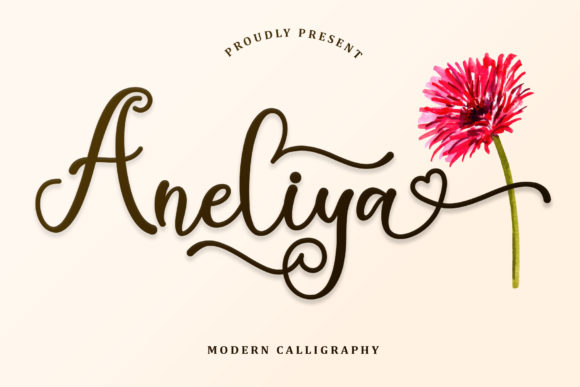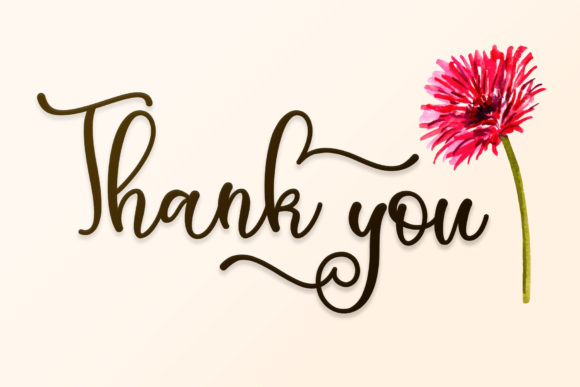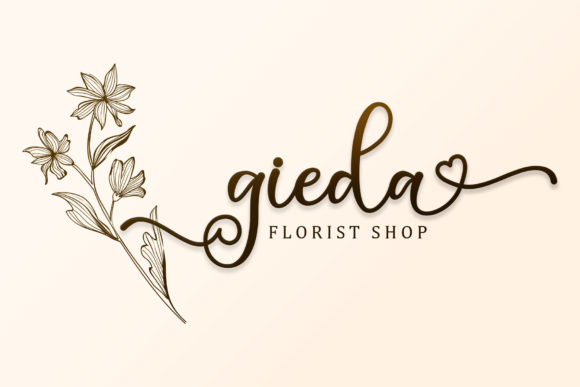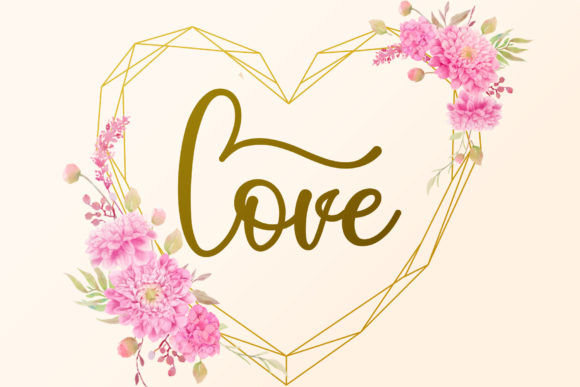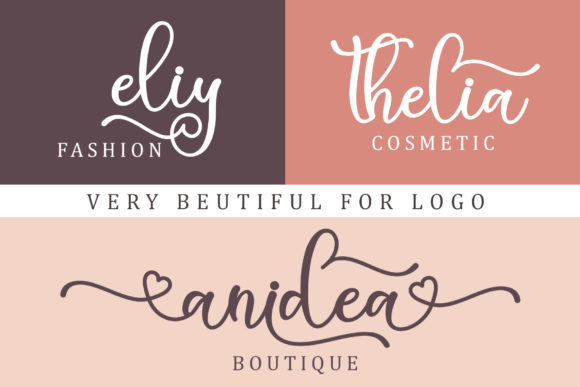
About Aneliya Font
Aneliya is a charming and romantic handwritten font that brings a touch of sweetness and elegance to any design project. With its flowing and graceful letterforms, this font creates a luxurious and sophisticated atmosphere, making it perfect for various creative endeavors.
Whether you’re working on wedding invitations, greeting cards, branding materials, or any other design project that needs a romantic and delicate touch, Aneliya will elevate your work to a new level of elegance. Its beautiful and refined style adds a sense of luxury and class, making your designs truly stand out.
One of the notable features of Aneliya is its extensive collection of glyphs and ligatures, which are easily accessible thanks to its PUA encoding. This means you can effortlessly access the special characters, swashes, and decorative elements that come with the font, allowing you to add intricate and unique details to your designs.
The romantic and sweet nature of Aneliya makes it suitable for a wide range of applications. It can enhance wedding stationery, love-themed designs, feminine branding, social media posts, and more. Its versatility and timeless appeal ensure that it can be used in various contexts while maintaining its charming and luxurious feel.
So, let your creativity soar with Aneliya. Explore its amazing glyphs and ligatures to add that extra touch of elegance and luxury to your design projects. Whether it’s a romantic wedding invitation or a delicate branding project, Aneliya will infuse your designs with a sense of beauty and sophistication.